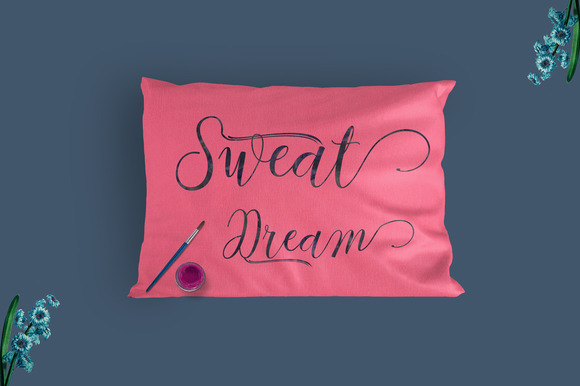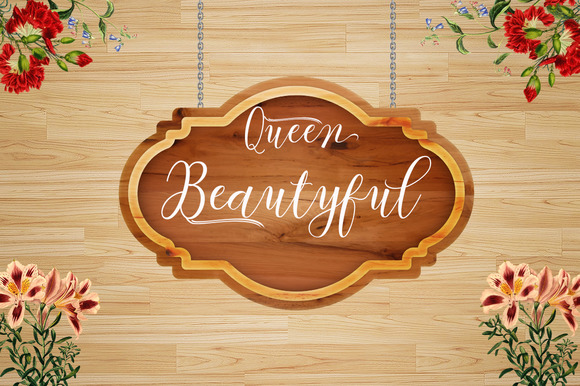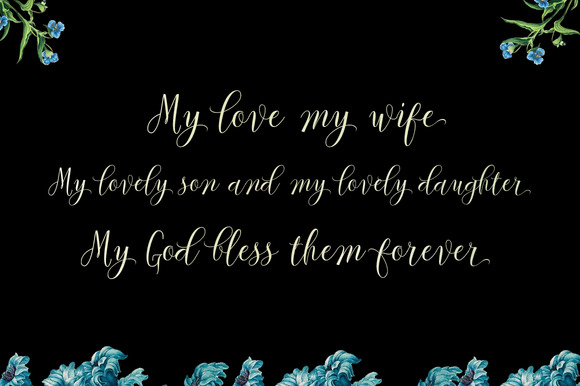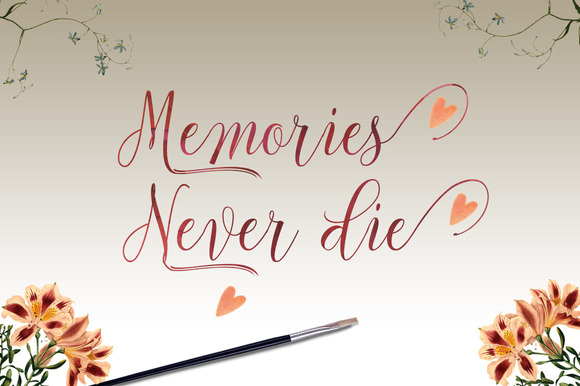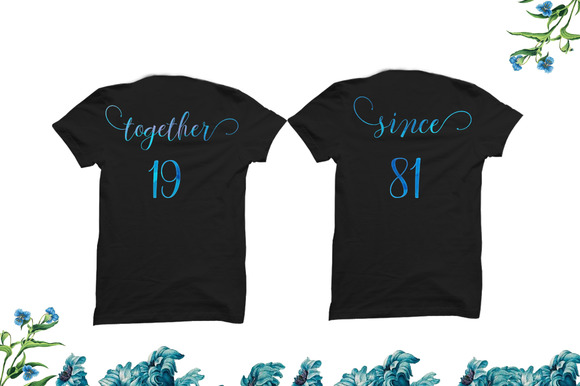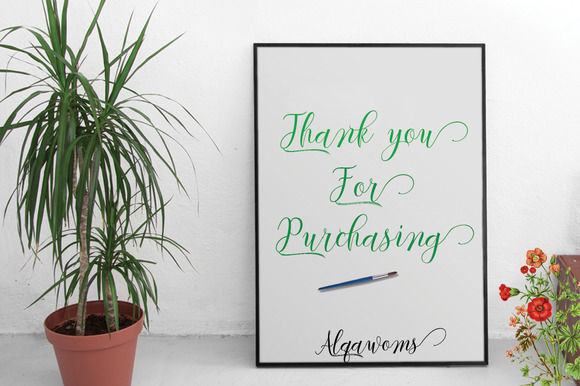
Better Font: Elevate Your Designs with Modern Calligraphy
In the world of design, typography plays a crucial role in conveying messages, expressing creativity, and capturing attention. When it comes to adding a touch of elegance and uniqueness to your work, the right font can make all the difference. Introducing Better Font, a modern calligraphy typeface that can instantly elevate your designs and set them apart from the rest.
What is Better Font?
Better Font is a beautiful, hand-crafted typeface that embodies the essence of modern calligraphy. With its fluid strokes, elegant lines, and refined curves, this font exudes sophistication and style. Whether you’re a designer, crafty DIY enthusiast, or simply someone who appreciates the art of typography, Better Font is sure to captivate your audience and leave a lasting impression.
Endless Possibilities with Better Font
The versatility of Better Font knows no bounds. Its unique and stylish design makes it perfect for a wide range of applications, including:
- Headings: Make a statement with bold, eye-catching headings that demand attention.
- Logos: Create a lasting brand impression with a custom logo that showcases your business’s personality.
- Invitations: Set the tone for special occasions with elegant, hand-crafted invitations that exude warmth and sophistication.
- T-Shirt Designs: Give your apparel a stylish edge with custom designs that showcase your personality or brand.
- Greeting Cards: Send heartfelt messages with beautifully designed cards that speak from the heart.
- Posters: Grab attention with bold, artistic posters that showcase your creativity.
- Labels: Add a touch of elegance to your products or packaging with custom labels that stand out.
- Book Covers: Create a lasting impression with eye-catching book covers that reflect the essence of your story.
- Brochures: Showcase your business or product with stylish brochures that exude professionalism.
Why Choose Better Font?
With so many fonts available, why choose Better Font? Here are just a few reasons why this modern calligraphy typeface stands out:
- Unique Touch: Better Font adds a distinctive touch to your designs, setting them apart from the rest.
- Elegant and Refined: This font exudes elegance and refinement, making it perfect for designs that require a touch of sophistication.
- Versatile: Better Font can be used for a wide range of applications, from headings and logos to invitations and book covers.
- Easy to Read: Despite its elegant design, Better Font remains easy to read, making it perfect for body text and captions.
Tips for Using Better Font
To get the most out of Better Font, here are a few tips to keep in mind:
- Experiment with Sizes: Better Font looks great in various sizes, from large headings to smaller body text.
- Play with Colors: This font pairs well with a range of colors, from bold and bright to soft and pastel.
- Mix and Match: Combine Better Font with other fonts to create a unique and visually appealing design.
Better Font is a modern calligraphy typeface that can instantly elevate your designs and add a touch of elegance and sophistication. With its versatility, unique touch, and refined design, this font is perfect for designers, crafters, and anyone looking to create stunning visual content. Whether you’re creating headings, logos, invitations, or book covers, Better Font is sure to make your work stand out from the rest.